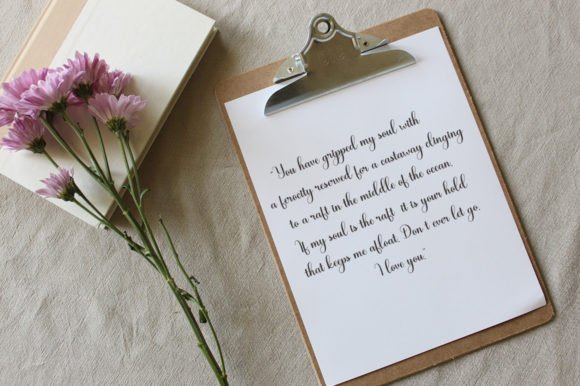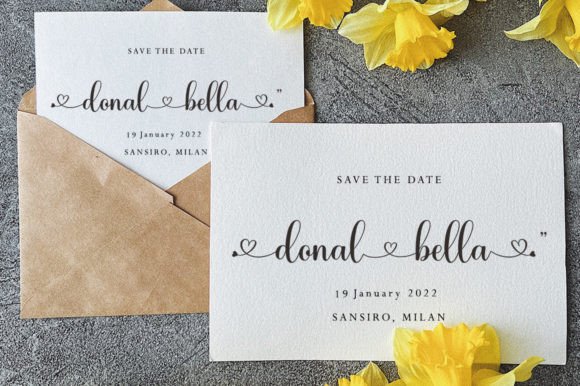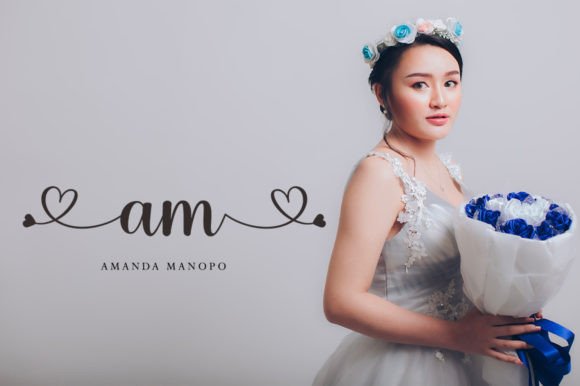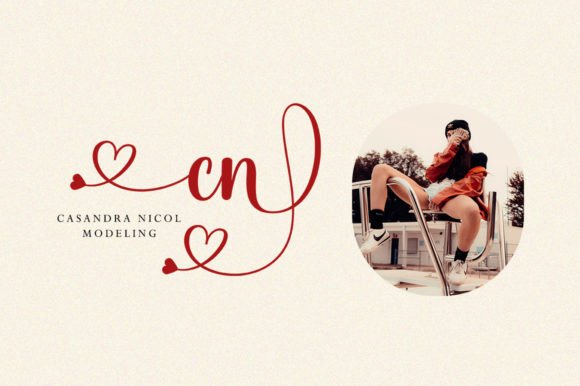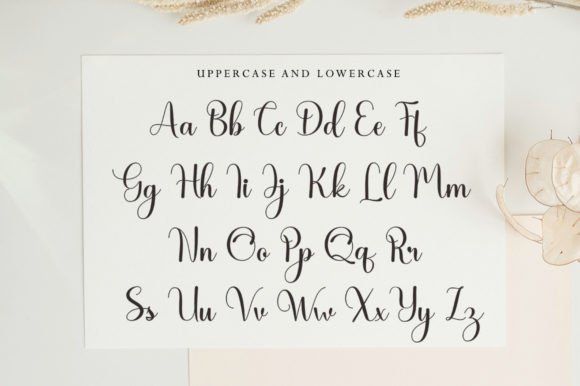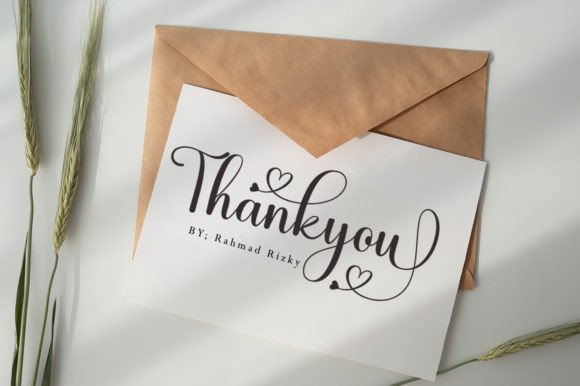
Hello Crush Font
About Hello Crush Font
**”Hello Crush”** is a new and fresh calligraphy font with a playful and cute design, making it an ideal choice for a wide range of creative projects. This font’s unique feature of connectable hearts adds an extra layer of charm, making it perfect for greeting cards, branding materials, business cards, quotes, posters, and more.
The fresh and funny nature of **”Hello Crush”** makes it well-suited for various design applications. Whether you’re creating greeting cards, branding materials, social media graphics, or any other creative project, this font brings a sense of playfulness and interest to your designs.
In greeting cards, **”Hello Crush”** stands out with its connectable hearts, adding a fun and engaging element to your card designs. This font enhances the overall appeal of your cards, making them more memorable and heartwarming.
Branding materials and business cards designed with **”Hello Crush”** exude a sense of creativity and cuteness. The font’s playful appearance can help your brand or business stand out and leave a lasting impression on customers.
Quotes and posters benefit from the interesting and charming aesthetics of **”Hello Crush.”** The font adds a touch of uniqueness and fun to your typographic compositions, making them more eye-catching and shareable.
In summary, **”Hello Crush”** is a new and fresh calligraphy font with connectable hearts, adding a playful and cute element to your design projects. Its versatility and charm make it a valuable choice for greeting cards, branding materials, business cards, quotes, posters, and any project where a sense of fun and interest is desired.